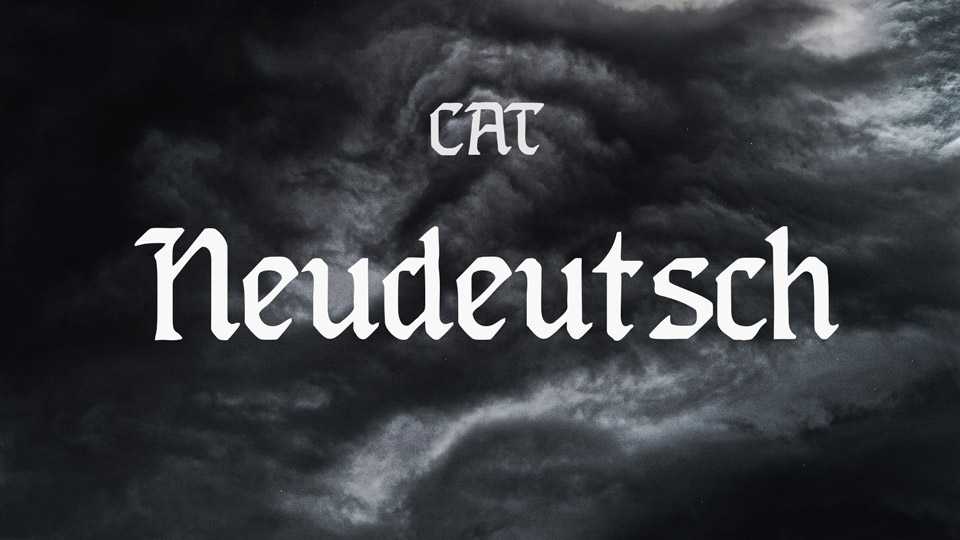
Download Neudeutsch CAT font, a blackletter typeface inspired by the typography, which appeared around 1900. Unusual font called Neudeutsch was found in a small printed volume and completely digitized.